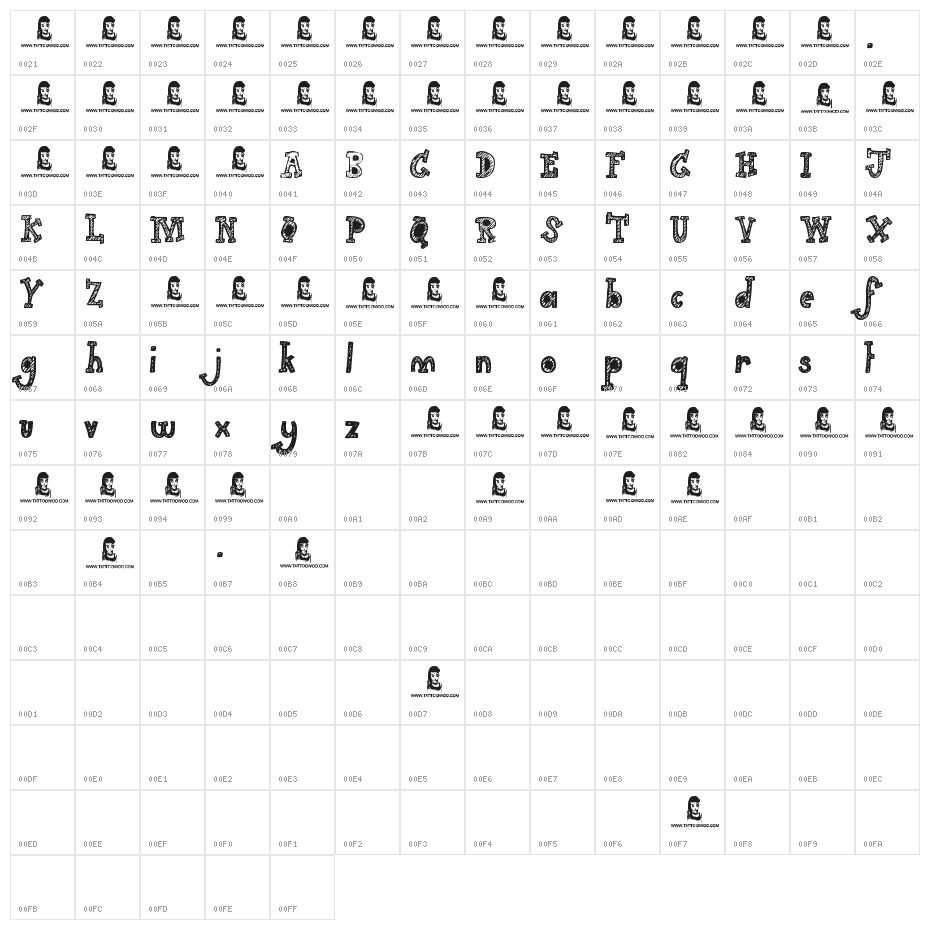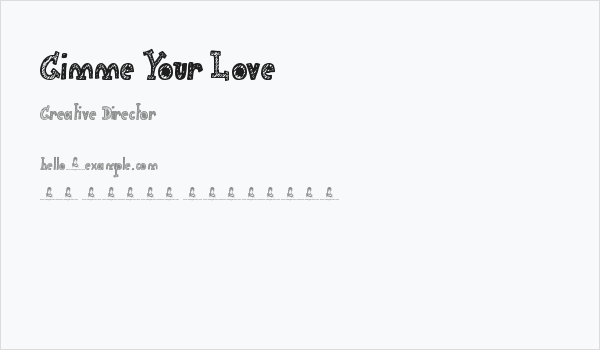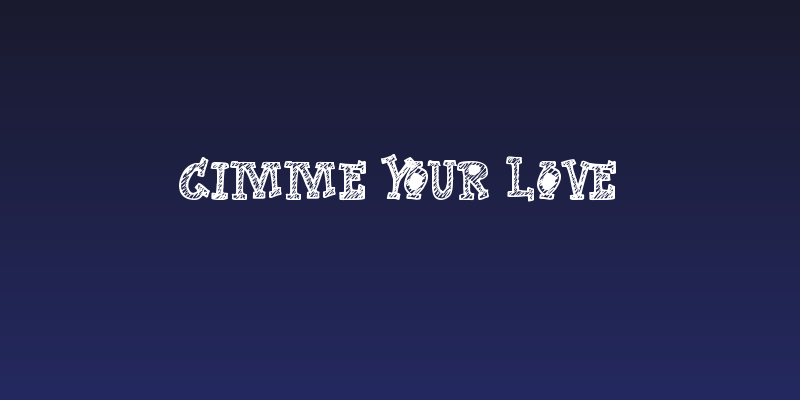
Gimme Your Love Font
Gimme Your Love Description
This playful and dynamic font features a hand-drawn, sketch-like appearance with a bold and irregular outline. The letters are filled with a textured pattern that resembles scribbles or doodles, giving it a casual and artistic feel. The uppercase and lowercase letters maintain a consistent style, with a whimsical and slightly uneven form that adds to its charm. The font's unique character is further enhanced by its decorative elements, making it ideal for creative and informal projects.